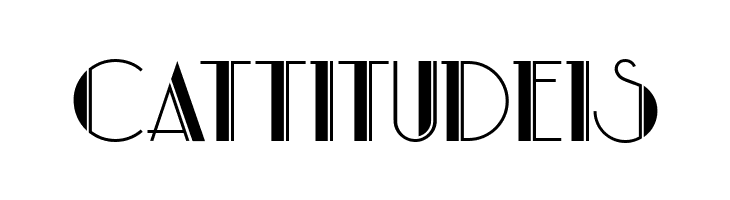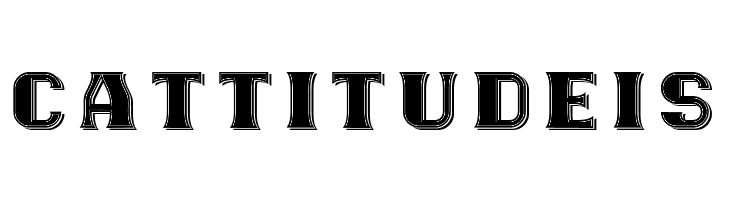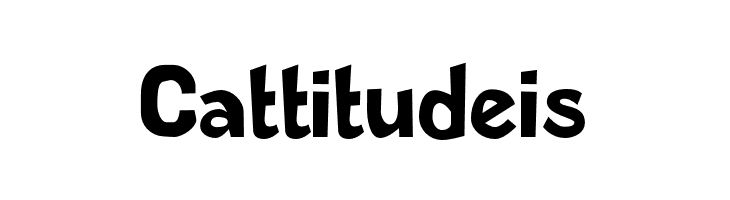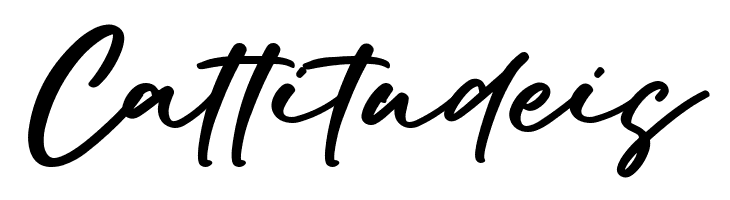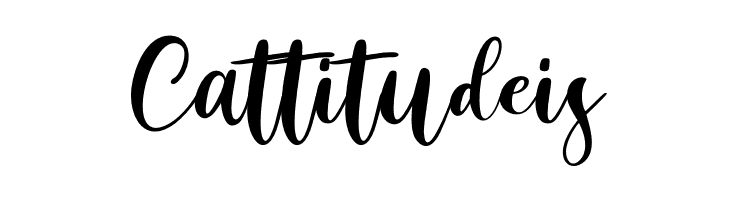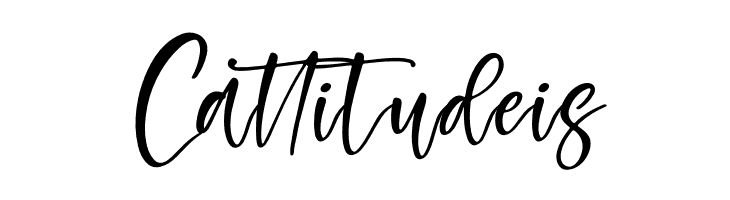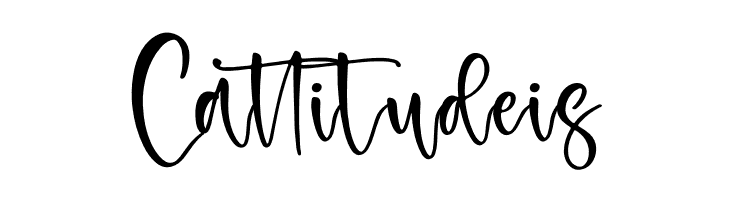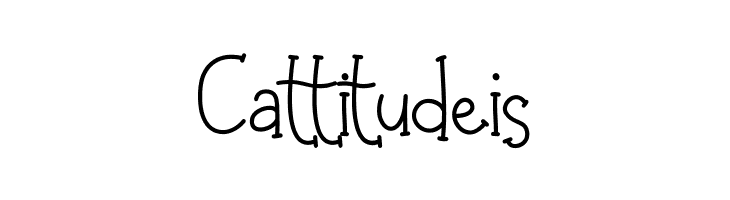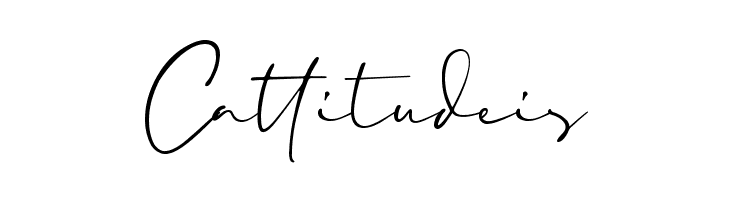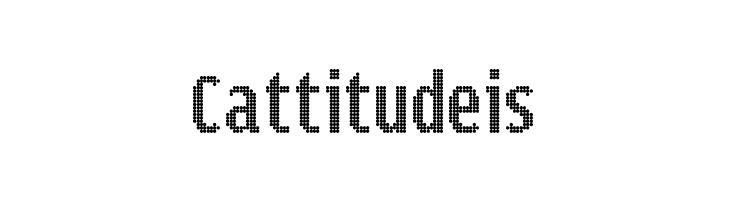
A bold, shadowed font with a vintage yet modern appeal, perfect for headlines.
A bold, playful handwritten font with a casual and friendly style.
An elegant, flowing script font with bold, expressive strokes.
A playful font with heart-shaped cutouts in uppercase letters, ideal for romantic themes.
Playful, bold handwritten font.
Bold, outlined decorative font with a three-dimensional effect.
A bold, decorative font with playful and dynamic character shapes.
A lively, cursive handwritten font with fluid strokes and expressive characters.
A playful, bold font with thick, uneven strokes and a whimsical style.
A decorative and playful font with artistic curves and bold characters.
A playful, hand-drawn font with a whimsical and friendly style.
An elegant and decorative font with ornate serifs and artistic flourishes.
A bold, cursive script font with a dynamic and expressive style.
A graceful and flowing script font with elegant, connected characters.
A modern, tech-inspired font with characters formed by small dots.
A dotted, pixelated font with a retro digital aesthetic.
A dot matrix style font with a retro digital display aesthetic.
An elegant, cursive font with flowing, connected characters.
A playful, hand-drawn font with a whimsical and friendly style.
A modern and elegant font with playful curves and dynamic strokes.
An expressive, hand-drawn font with dynamic and fluid strokes.
A modern serif font with decorative elements and clean lines.
A modern serif font with elegant curves and a classic touch.
A bold, Art Nouveau-inspired font with decorative, flowing lines.
A bold, italic font with Art Nouveau influences and dynamic curves.
A bold, decorative font with Art Nouveau influences, ideal for vintage-themed designs.
A lively, expressive handwritten font with fluid strokes and playful elegance.
A dynamic, fluid script font with elegant, flowing curves and a handwritten appearance.
A playful, hand-drawn font with tall, narrow letters and decorative elements.
A bold, Art Deco-inspired font with geometric shapes and sharp angles.